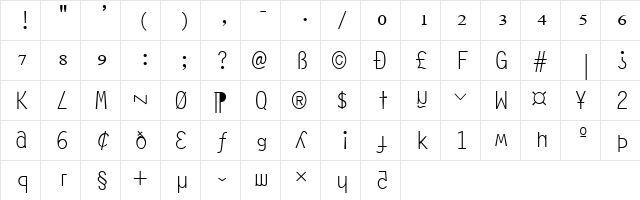
Anarchy Mono Regular
Design Context for Anarchy Mono Typeface
Anarchy Mono brings the precise, column-aligned rhythm of monospaced typography to designs that value technical clarity and systematic order.
A natural fit for code editors, technical documentation, developer-focused branding, and terminal-inspired UI.
Pro Tip: Pair Anarchy Mono with a proportional sans for UI contexts where code-style labels and regular body copy need to coexist.